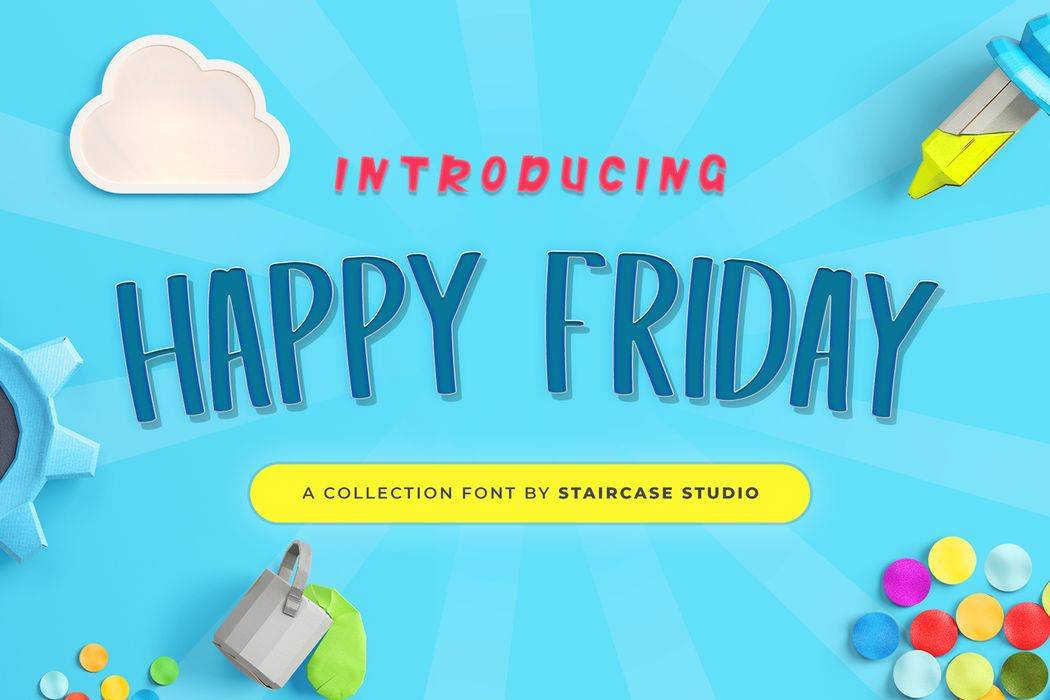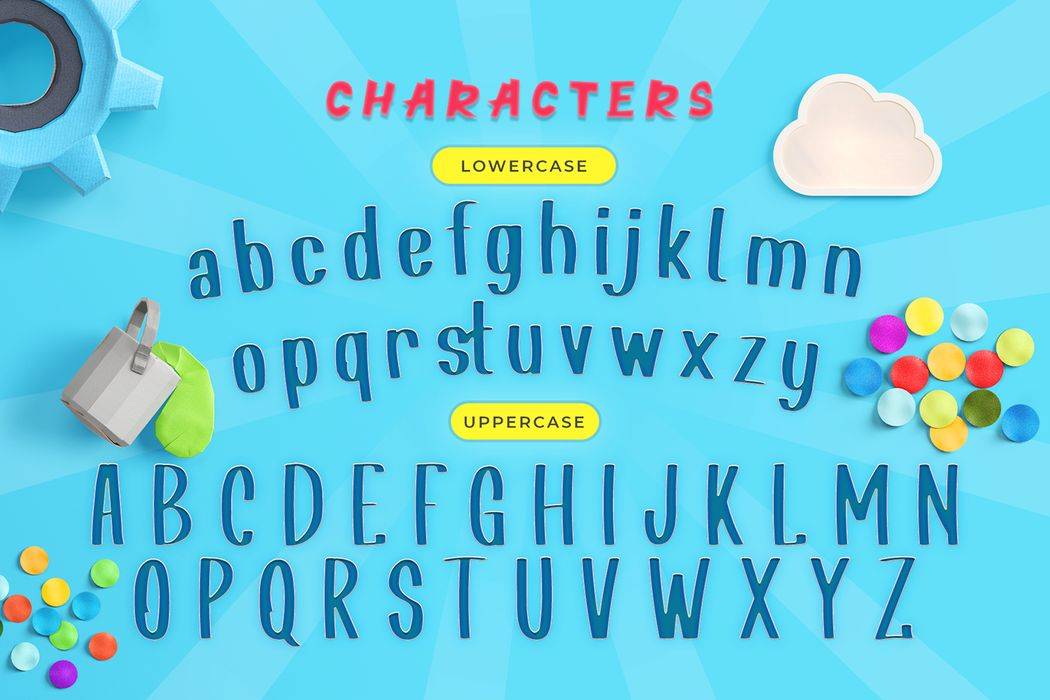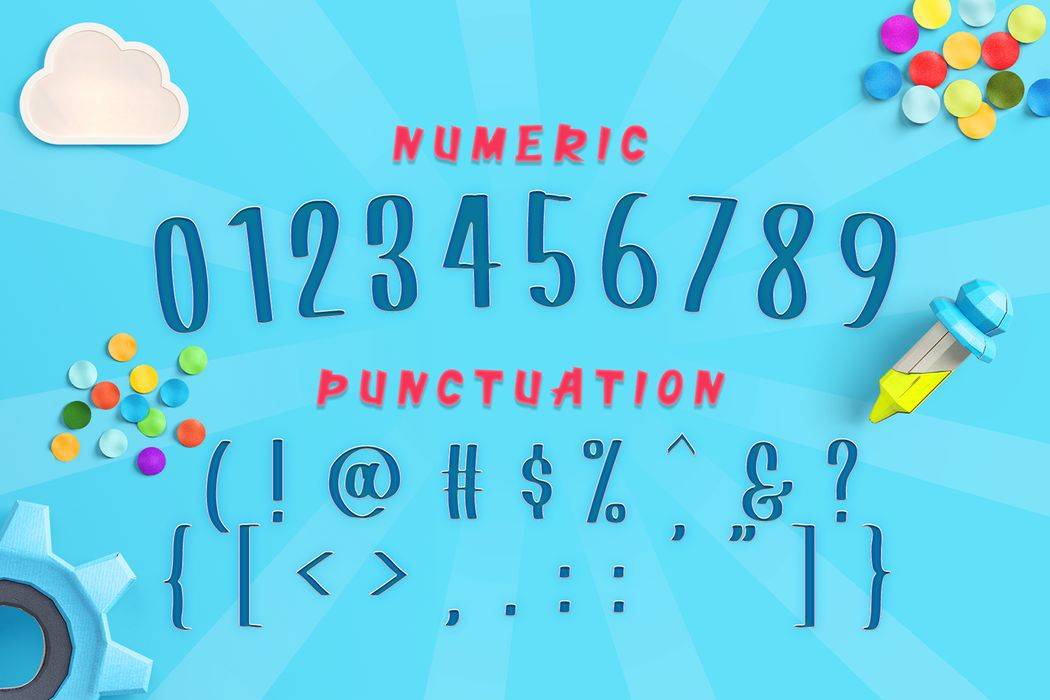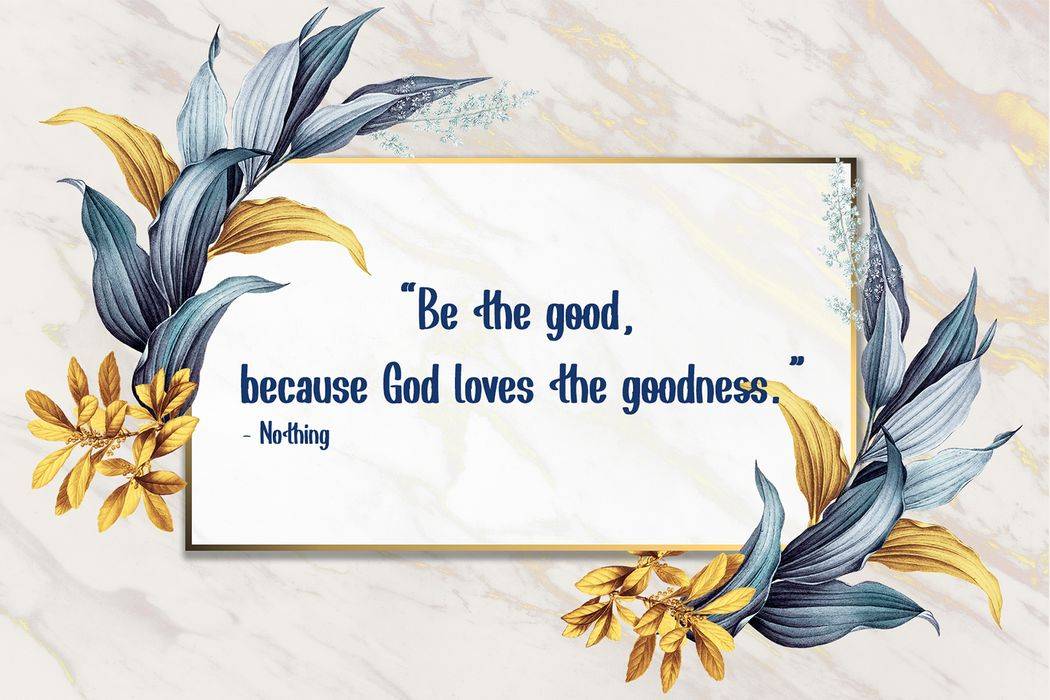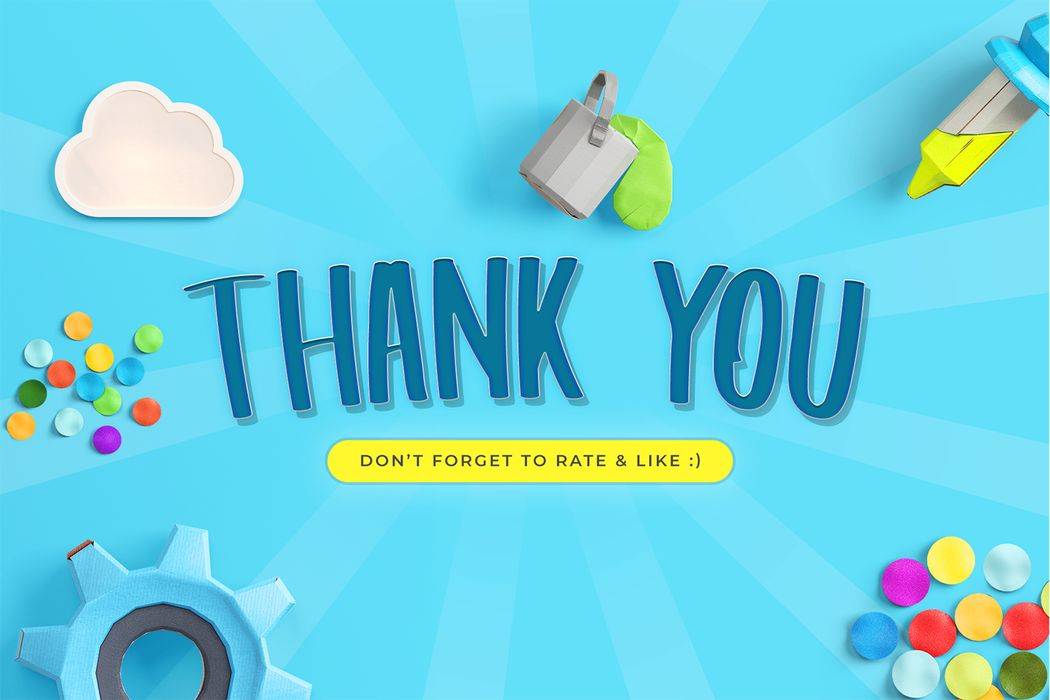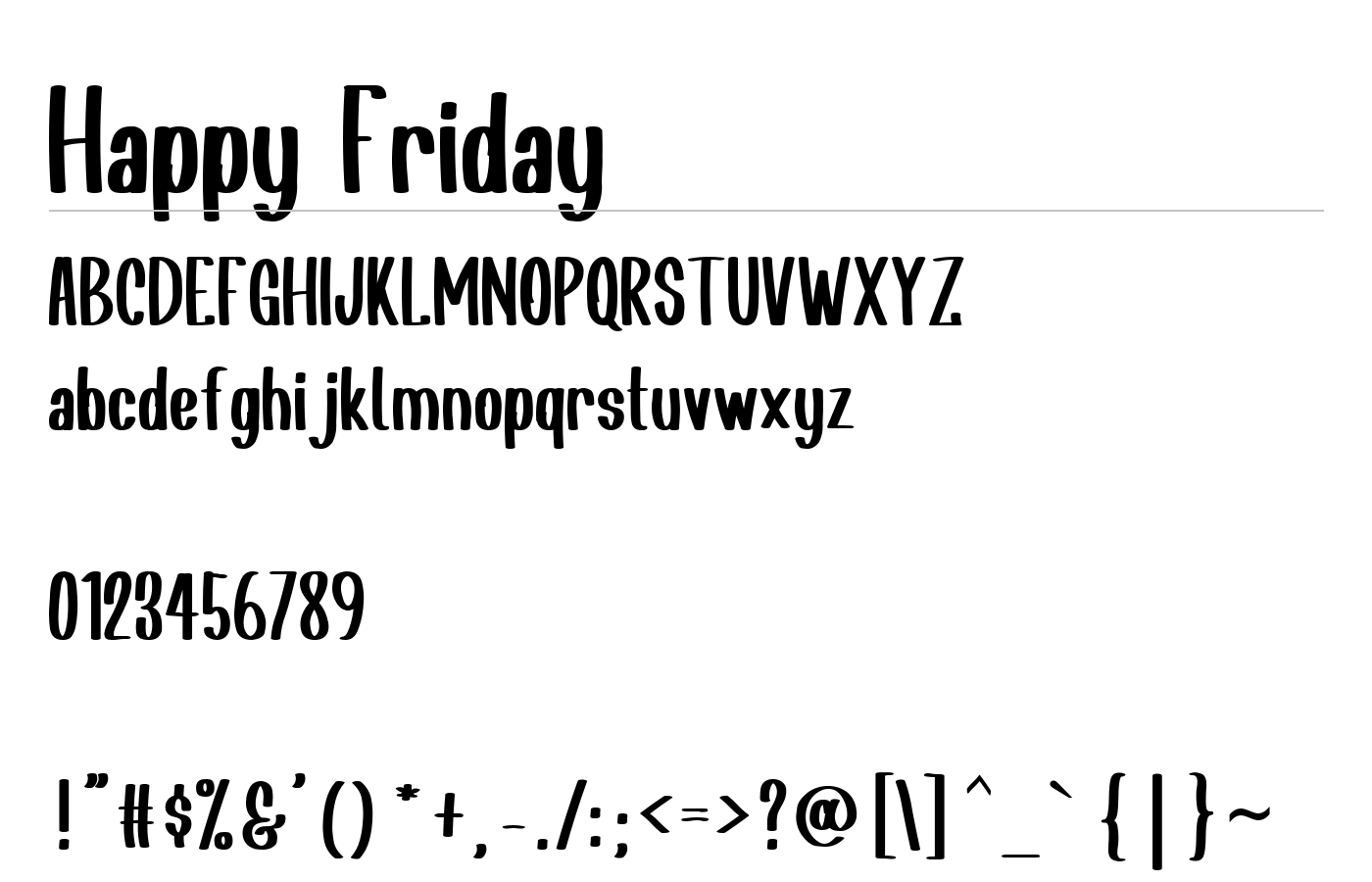
Happy Friday is a playful and informal sans serif font with tall, narrow letterforms and a hand-drawn feel. Its slightly irregular strokes and rounded edges give it a friendly, casual personality, making it perfect for fun branding, children’s materials, and creative projects that want to evoke warmth and approachability. This font works best in headlines, logos, and designs where a lively, cheerful tone is desired.
Happy Friday Font
About Happy Friday Font
| Font family | Happy Friday Font |